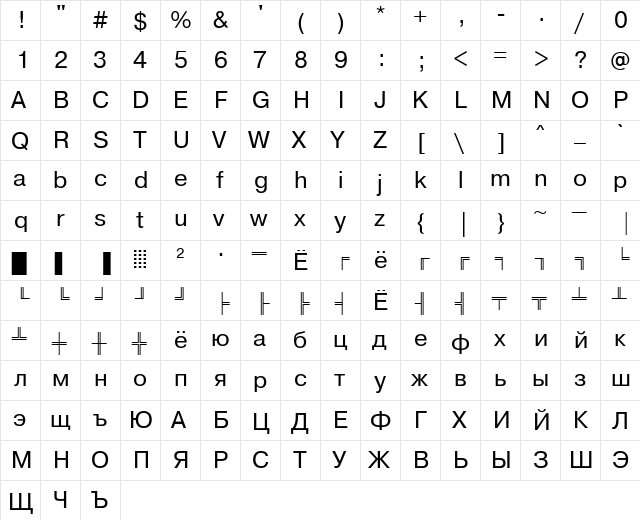
PragmaticaKOICTT Regular Font Preview
PragmaticaKOICTT Regular
Design Context for PragmaticaKOICTT Typeface
PragmaticaKOICTT offers clean, dependable letterforms without strong stylistic allegiance, making it a practical choice for designers who need flexibility.